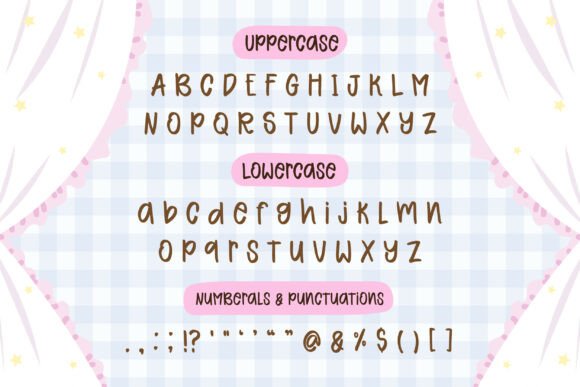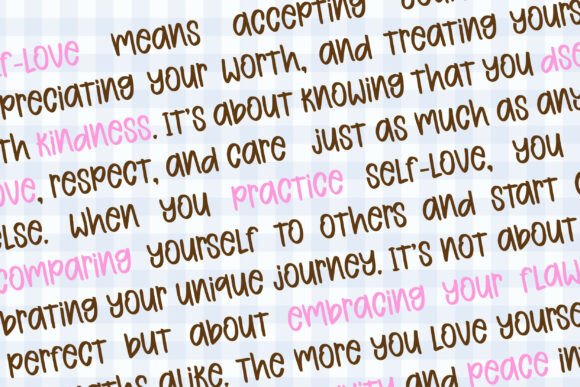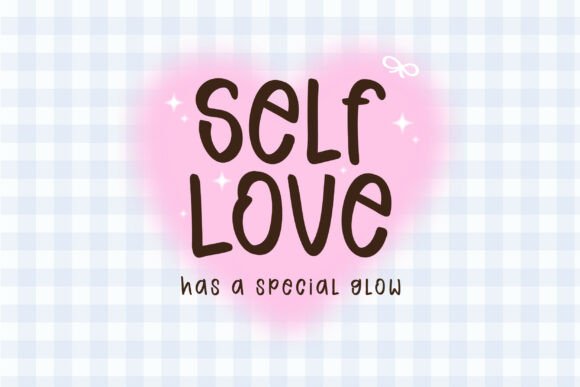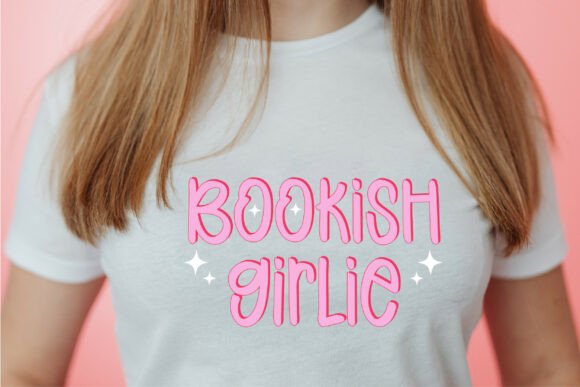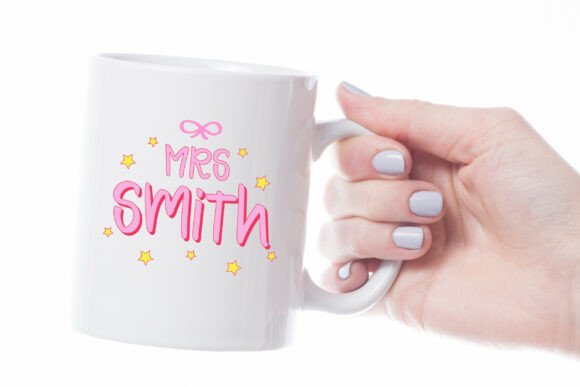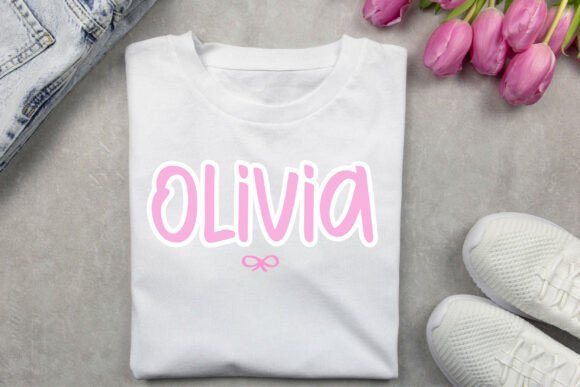
Introduction to Preppy Cutie Font
Wrap your designs in warmth with Preppy Cutie, an undeniably cute and cozy handwriting display font that radiates youthful charm and friendly simplicity.
This typeface is defined by its chunky, smooth, and incredibly rounded letterforms, giving it a playful, almost inflated, bubble-like appearance Its thick, uniform weight ensures high visibility, while the slight variations in character size and alignment add a genuine, imperfect hand-drawn aesthetic that feels instantly approachable.